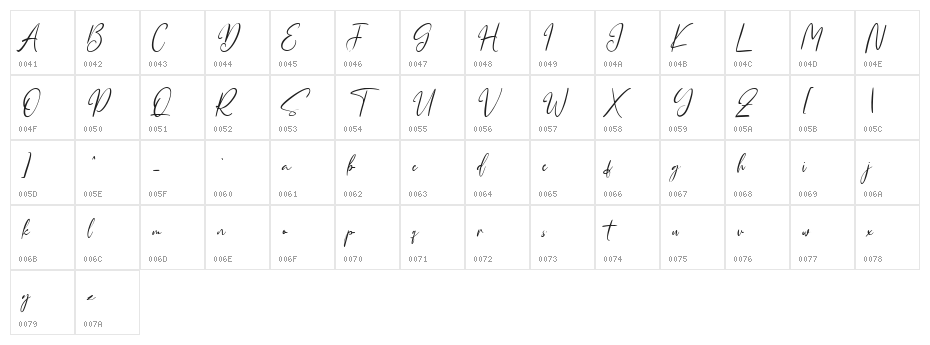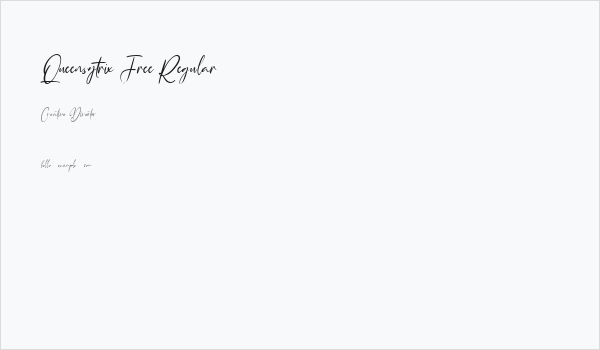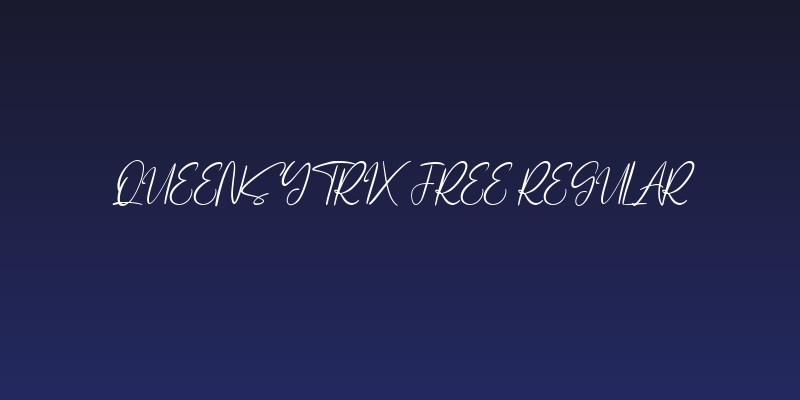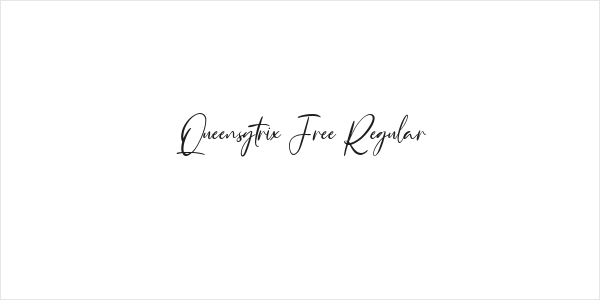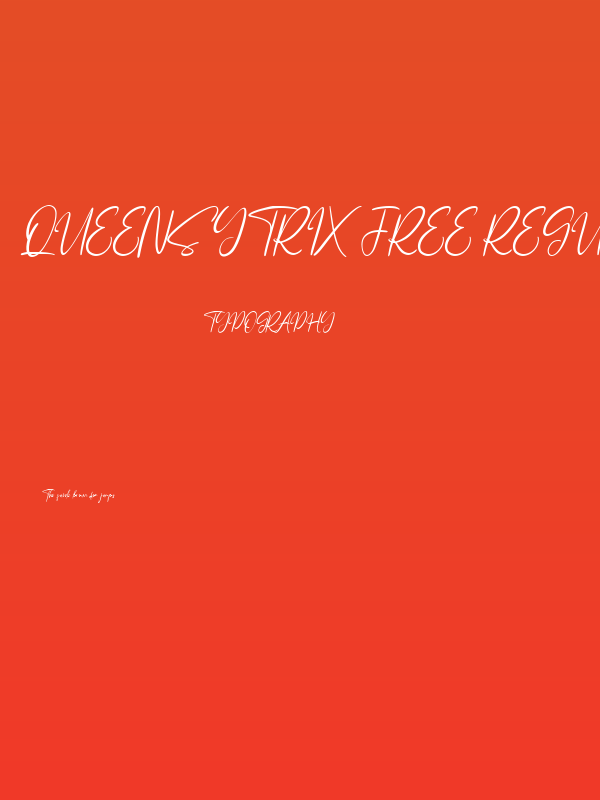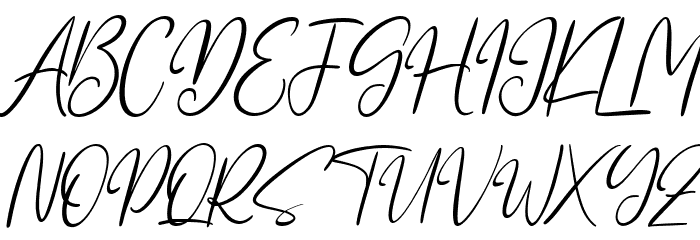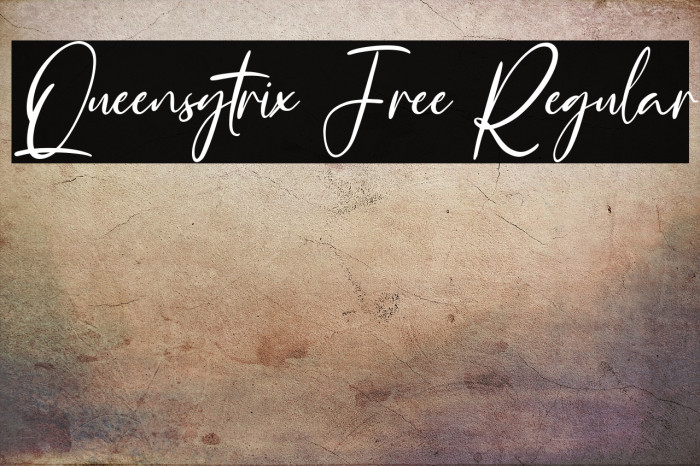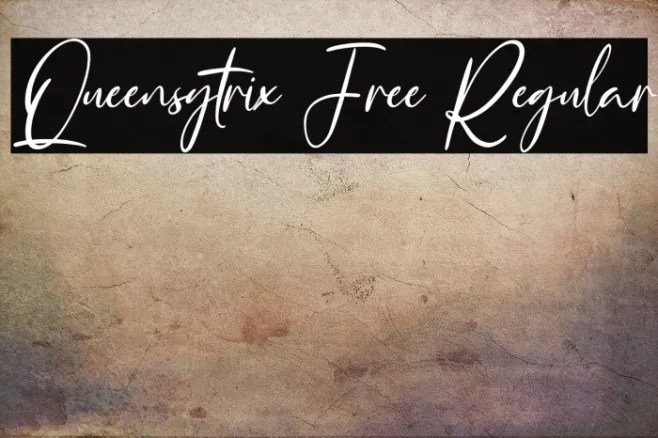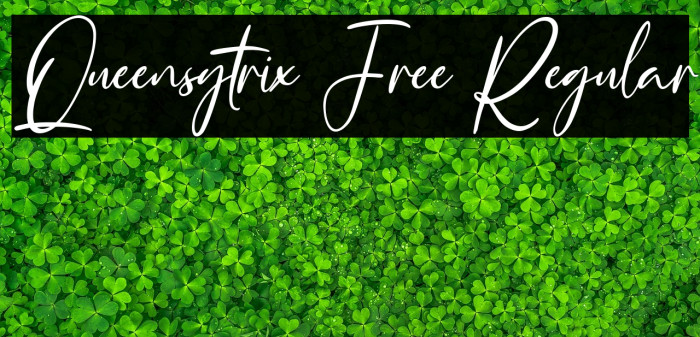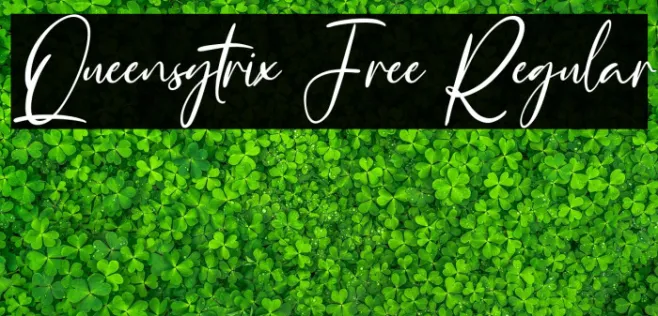
Queensytrix Free Regular Font
Queensytrix Free Regular Description
This font exudes elegance and sophistication with its fluid, cursive style. The letters are interconnected, creating a seamless flow that is both graceful and dynamic. The uppercase characters are bold and prominent, while the lowercase letters maintain a delicate balance with their slender forms. The script is reminiscent of traditional calligraphy, yet it carries a modern twist with its clean lines and smooth curves. This font is perfect for adding a touch of class and refinement to any design project, making it ideal for invitations, branding, and decorative purposes.
| Use Case | Logos, Invitations, Decorative headings |
| Proposed Projects | Ideal for wedding invitations, luxury branding, elegant logos, and decorative headings. |